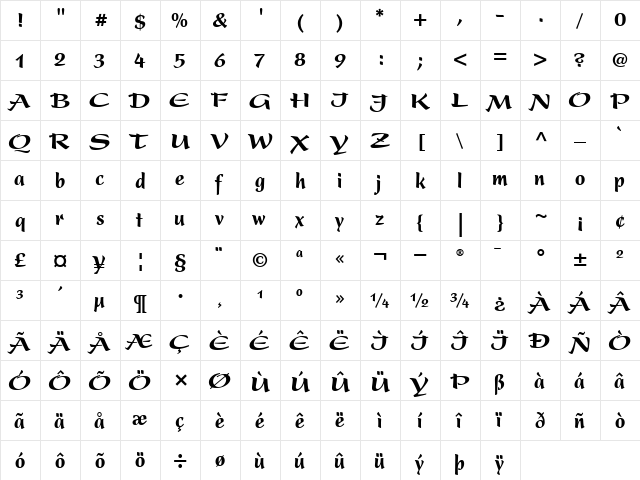
Present-CondensedBlack Black
Design Context for Present-CondensedBlack Typeface
Present-CondensedBlack is a composed and adaptable typeface that performs quietly and consistently across a wide range of design contexts. The condensed width makes it efficient for tight spaces without sacrificing legibility.